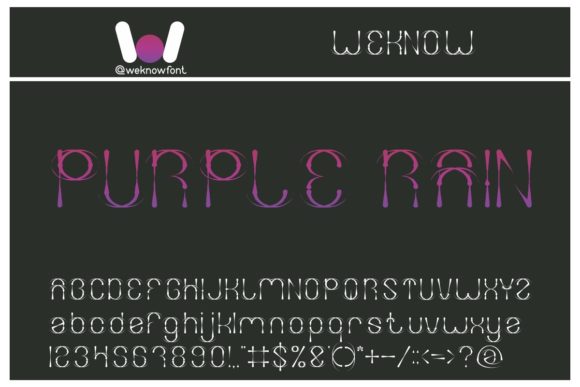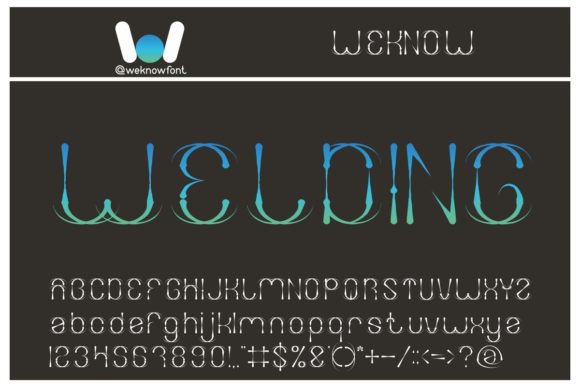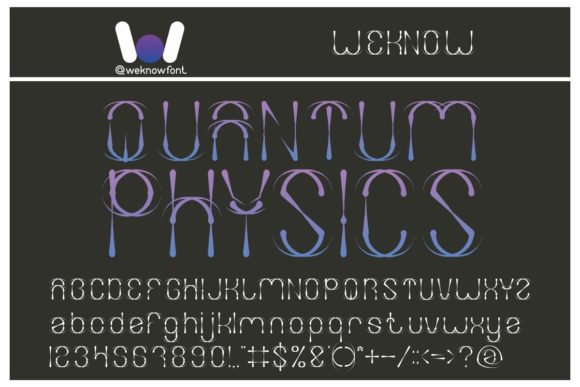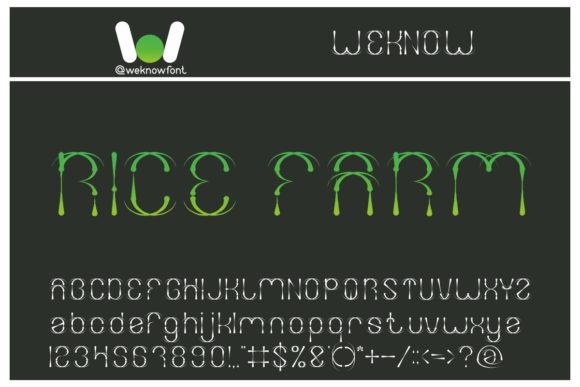
Introducing Firework Font: The Ultimate Modern Display Font
Are you tired of using the same old fonts for your creative projects? Look no further! Firework Font is here to revolutionize the way you approach typography. This cool, modern, and futuristic display font is designed to make your designs stand out from the crowd. With its sleek and edgy aesthetic, Firework Font is perfect for designers and crafters looking to add a touch of excitement to their work.
What Makes Firework Font So Special?
Firework Font is a versatile and highly adaptable font that can be matched to an incredibly large set of projects. Whether you’re working on a logo, brochure, poster, or website, this font is sure to make a statement. Its unique and futuristic design makes it perfect for projects that require a modern and edgy feel. From tech startups to fashion brands, Firework Font is the perfect choice for anyone looking to add a touch of sophistication and style to their designs.
Key Features of Firework Font
• Modern and Futuristic Design: Firework Font boasts a sleek and edgy design that’s perfect for modern and futuristic-themed projects.
• Highly Adaptable: This font can be matched to a wide range of projects, from logos and brochures to posters and websites.
• Unique and Exclusive: With its unique and exclusive design, Firework Font is sure to make your designs stand out from the crowd.
• Use it as a Headline Font: Firework Font is perfect for headlines and titles. Use it to grab attention and make a statement.
• Pair it with Other Fonts: Firework Font can be paired with other fonts to create a unique and visually appealing typography combination.
• Experiment with Different Colors: Firework Font looks great in a variety of colors. Experiment with different colors to find the one that works best for your design.
Benefits of Using Firework Font
There are many benefits to using Firework Font in your designs. Here are a few:
• Increased Visibility: Firework Font is designed to grab attention and make a statement. Use it to increase visibility and make your designs stand out.
• Improved Brand Recognition: With its unique and exclusive design, Firework Font can help improve brand recognition and establish your brand as modern and edgy.
• Enhanced Creativity: Firework Font is perfect for designers and crafters looking to add a touch of excitement to their work. Use it to enhance your creativity and take your designs to the next level.